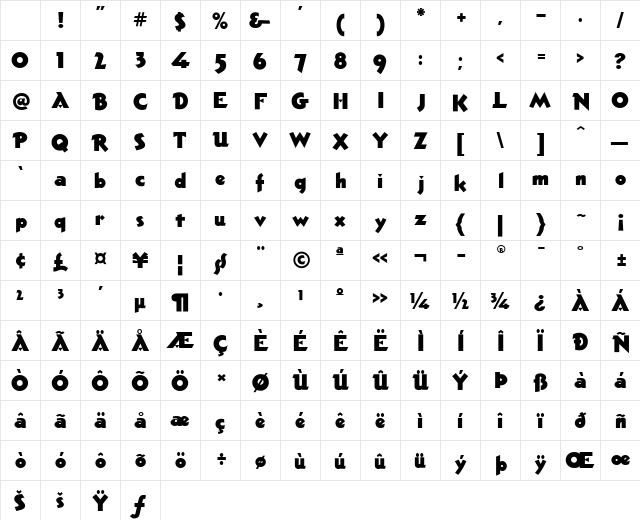
Complete Pacific Regular glyph index. Displaying only characters natively supported by Pacific Regular font.
Pacific is a composed and adaptable typeface that performs quietly and consistently across a wide range of design contexts.
Who designed the Pacific Regular font?
This font was published by Pacific Clipper Extra Bold Copr. Spiece Graphics. Check the technical specs section for copyright and designer details.